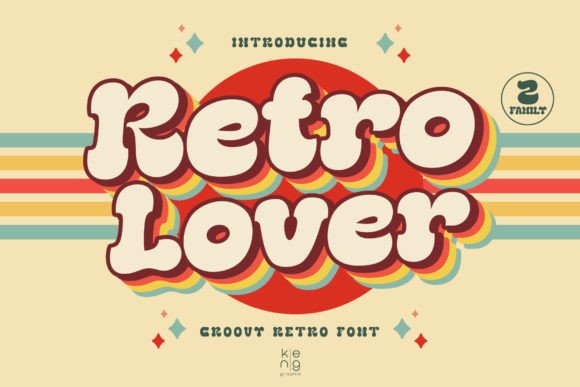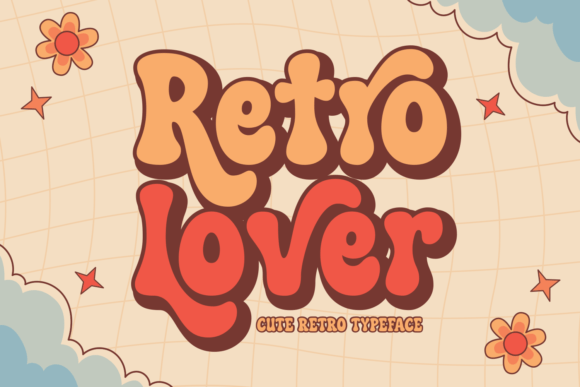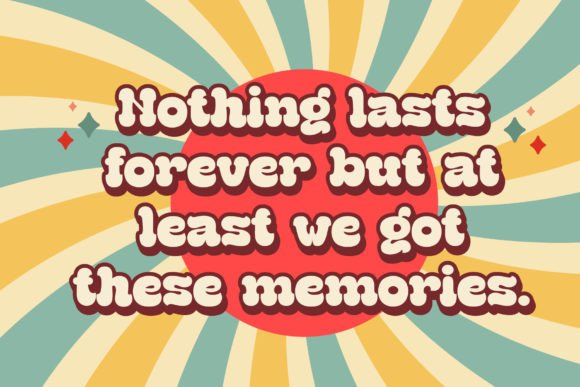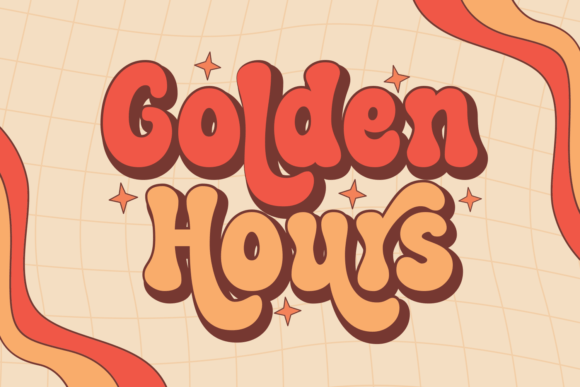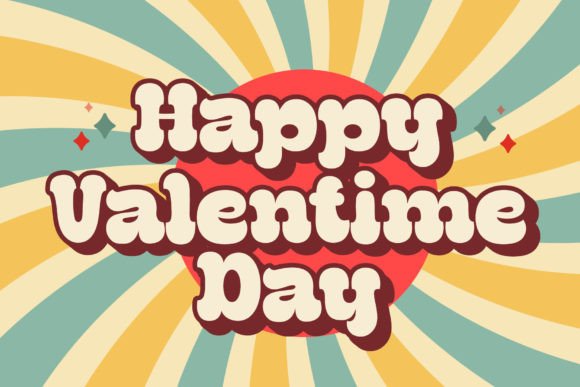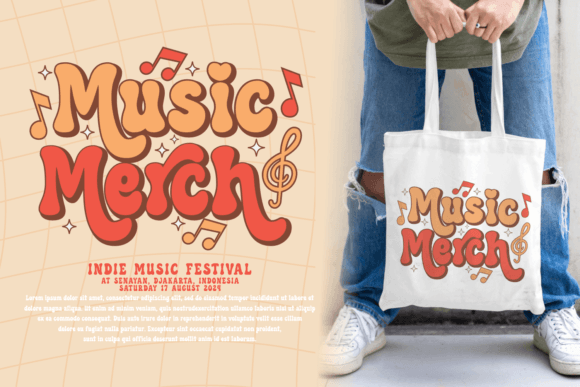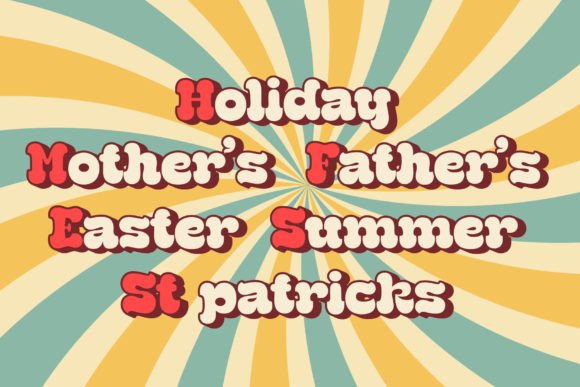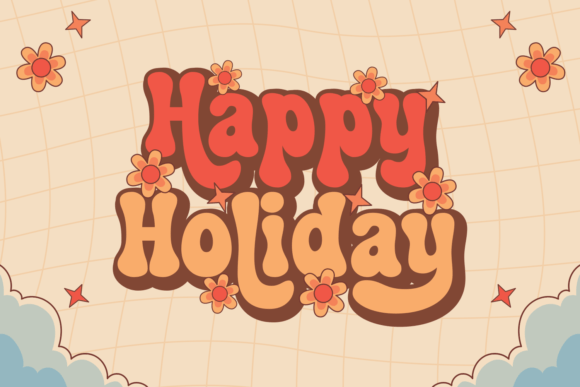
Retro Lover Font: Groovy Display Typography for Vintage Designs
About the Retro Lover Font
The Retro Lover Font offers a perfect balance of form and function for your design needs. Retro Lover is an incredibly unique and retro display font. Masterfully designed to become a true favorite, this font has the potential to bring each of your creative ideas to the highest level!
Retro Lover’s bold, playful energy makes it ideal for headlines, posters, and short-form branding applications where a vintage aesthetic is desired. It excels in creating eye-catching logos and packaging for products targeting a younger, more retro-conscious demographic. However, its highly stylized nature makes it unsuitable for body text or UI elements; its legibility suffers at smaller sizes.
Pairing Retro Lover effectively requires considering its strong personality. A clean sans-serif like Montserrat or a geometric sans-serif such as Futura would provide a contemporary counterpoint, balancing its retro charm. For a more vintage-inspired pairing, a classic serif like Garamond or a slightly more playful serif like Playfair Display would create a cohesive yet diverse feel.
Its overall mood is energetic and nostalgic, yet undeniably modern in its execution. Brands emphasizing fun, vintage-inspired aesthetics, such as clothing lines, record labels, or food and beverage companies with a retro feel, would find it particularly effective.
Retro Lover Font Usage Examples
Retro Lover Font Example